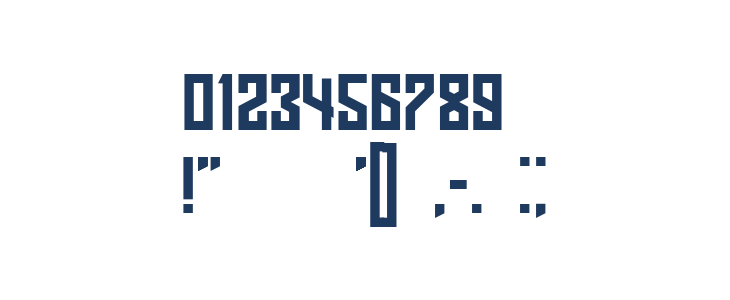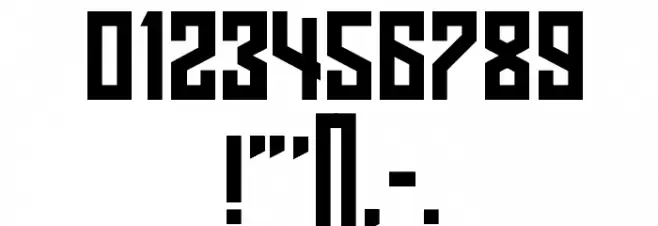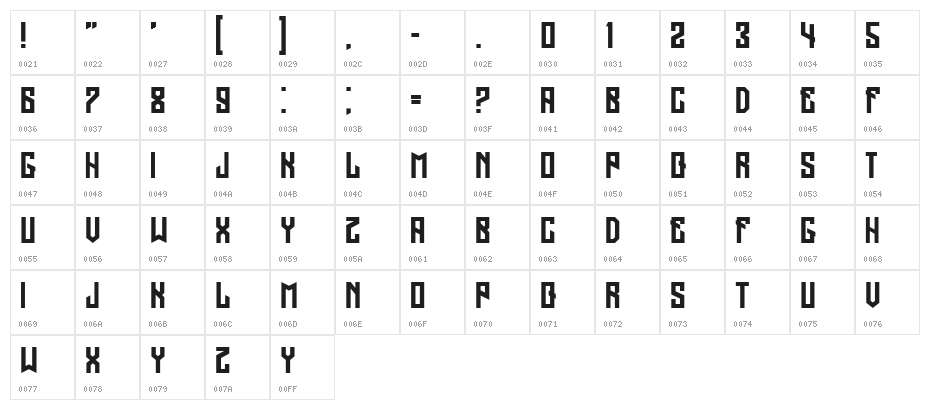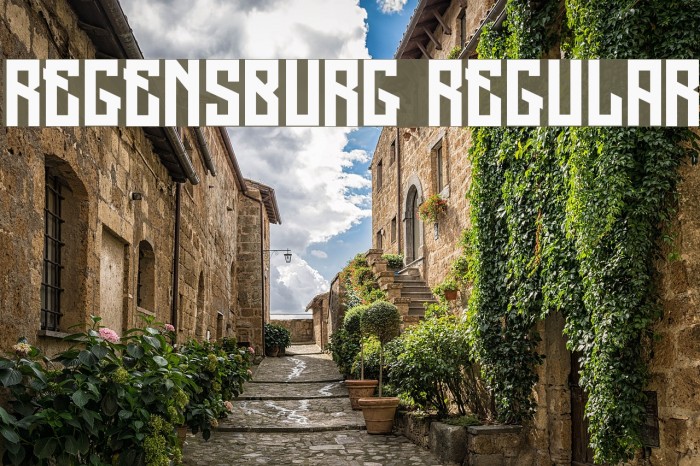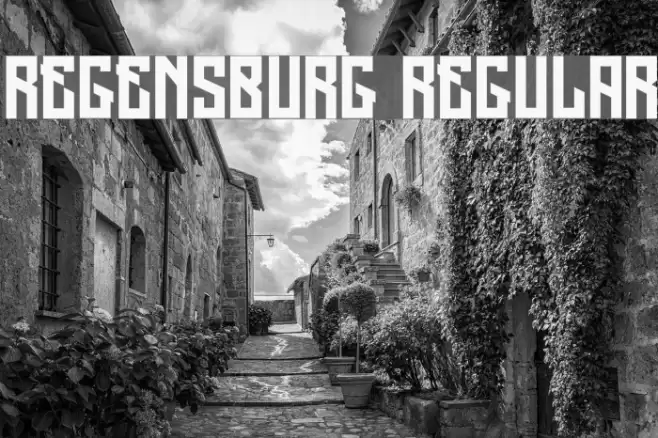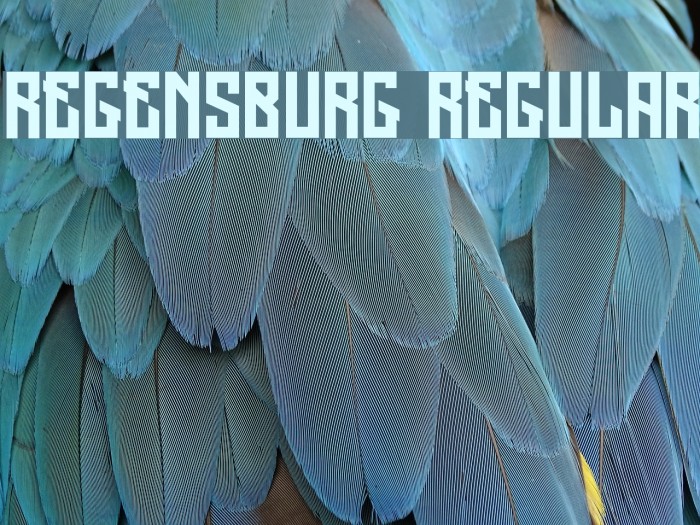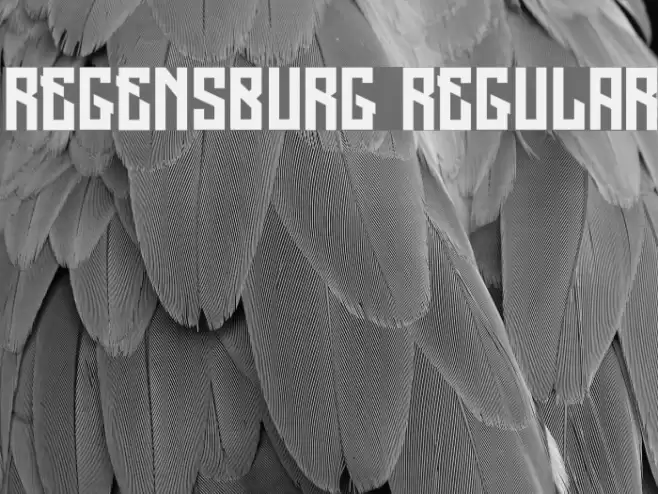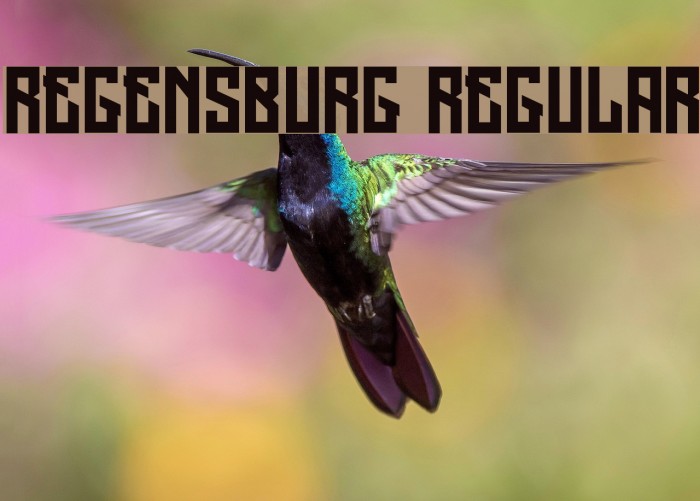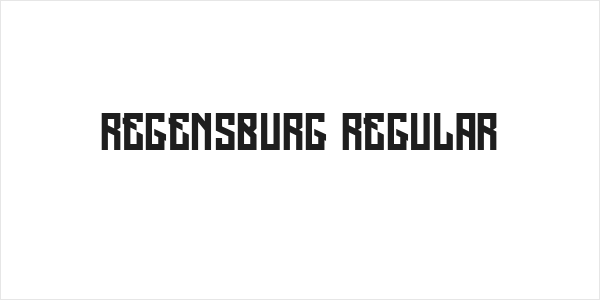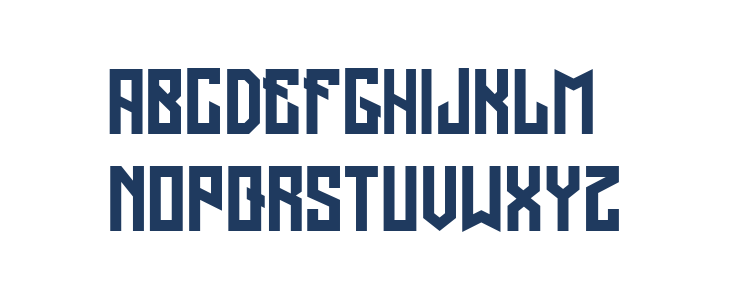
Regensburg Regular Font
Regensburg Regular Description
This font features a bold and geometric design with sharp, angular lines and a strong presence. The uppercase letters are uniform in height, creating a cohesive and structured appearance. The characters are designed with a consistent width, giving the font a monospaced feel, although it is not strictly monospaced. The numbers and special characters maintain the same bold and angular style, ensuring visual consistency across all elements. The font's unique style makes it stand out, with a modern and slightly futuristic aesthetic that is both eye-catching and versatile.